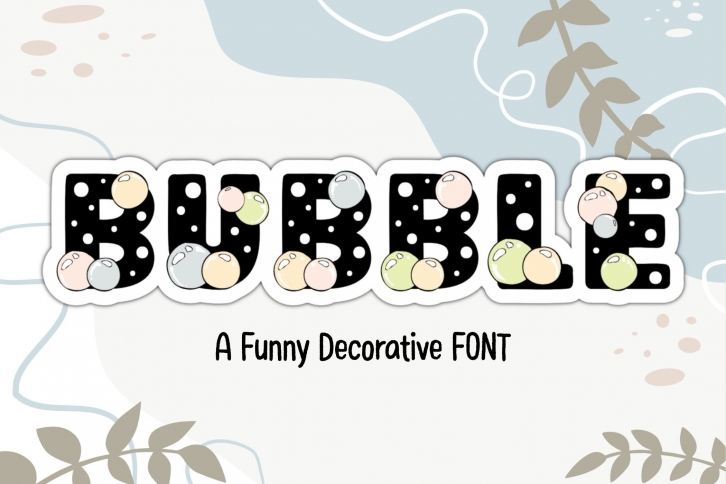
Bubble is a Funny Decorative font. that will fill your designs with cheerfulness! Use it on covers, posters, crafty DIY projects, and anything that needs to pop!